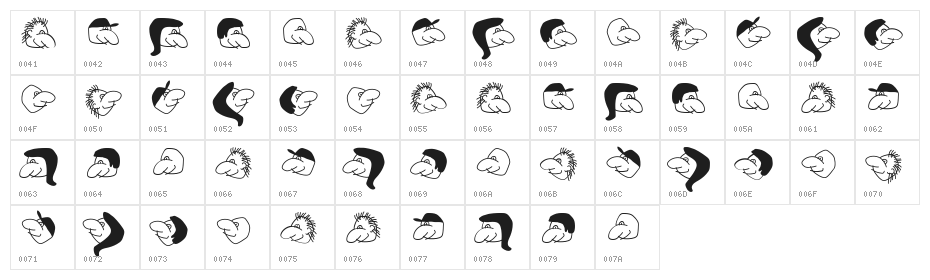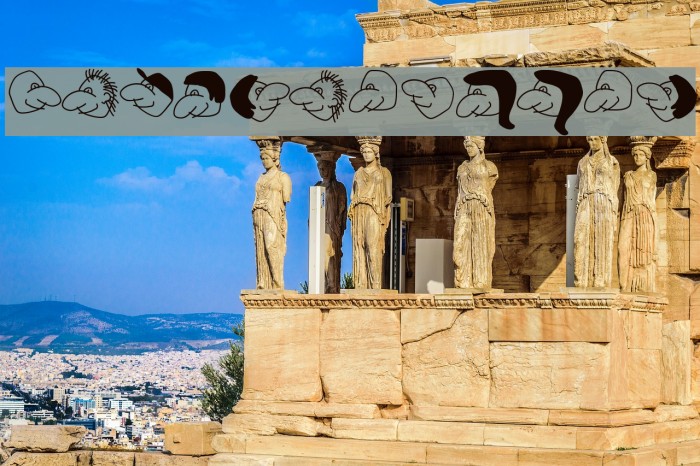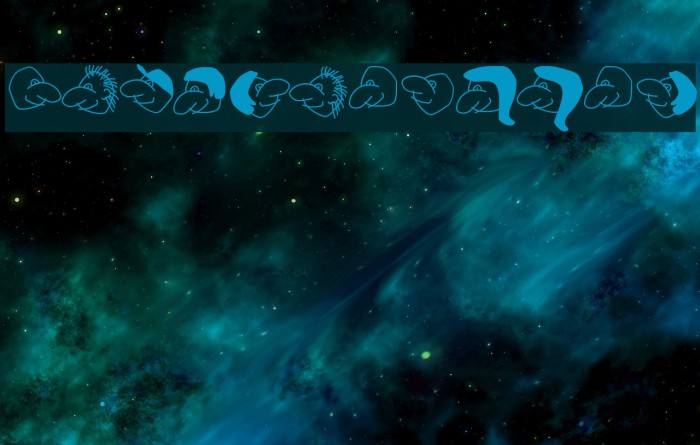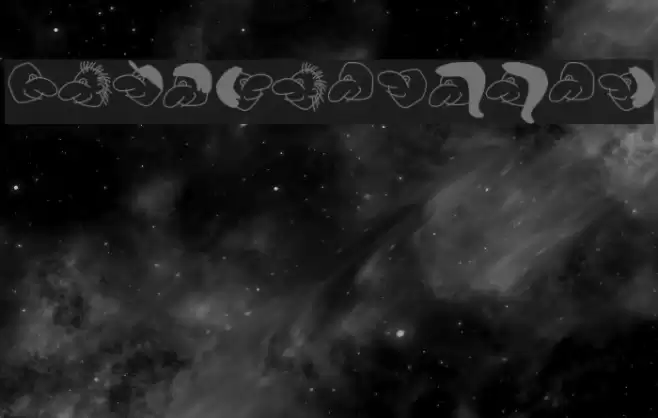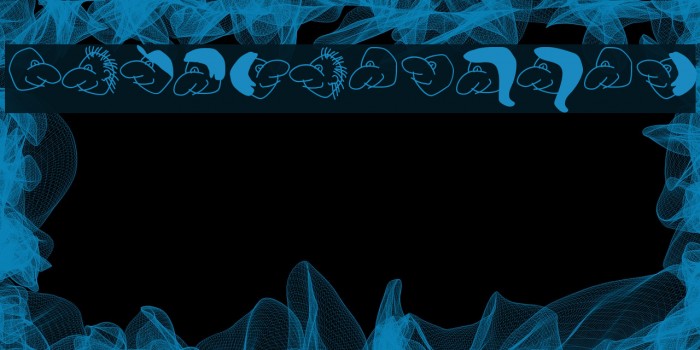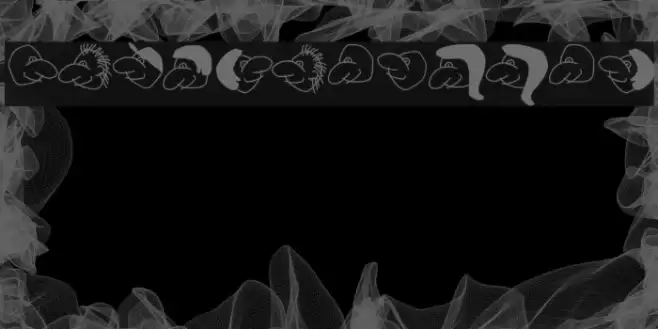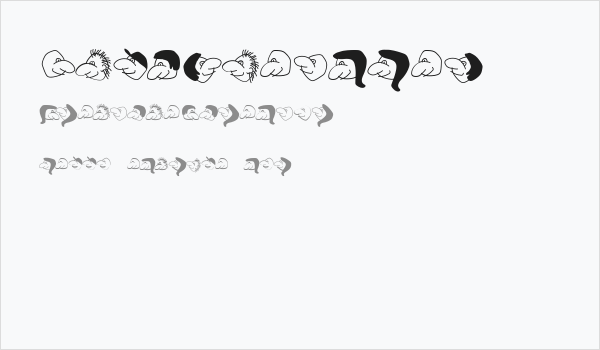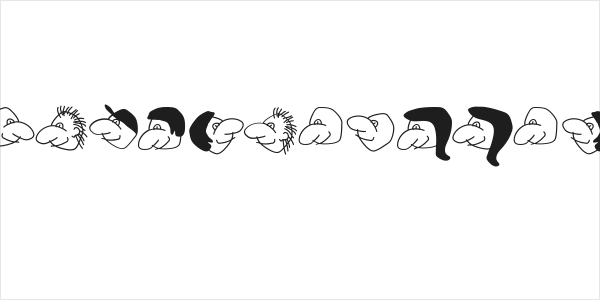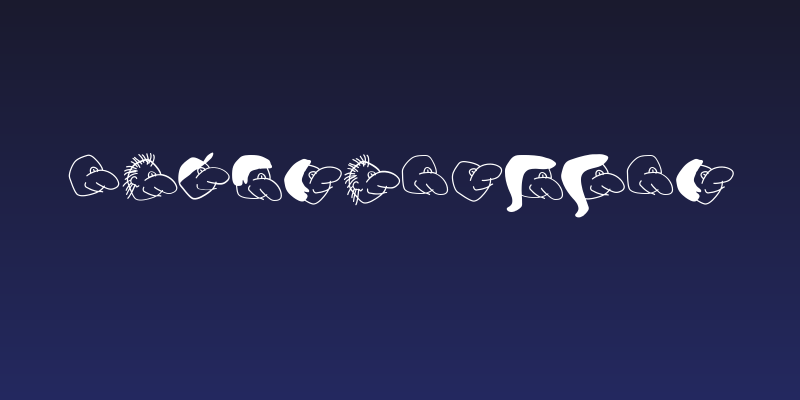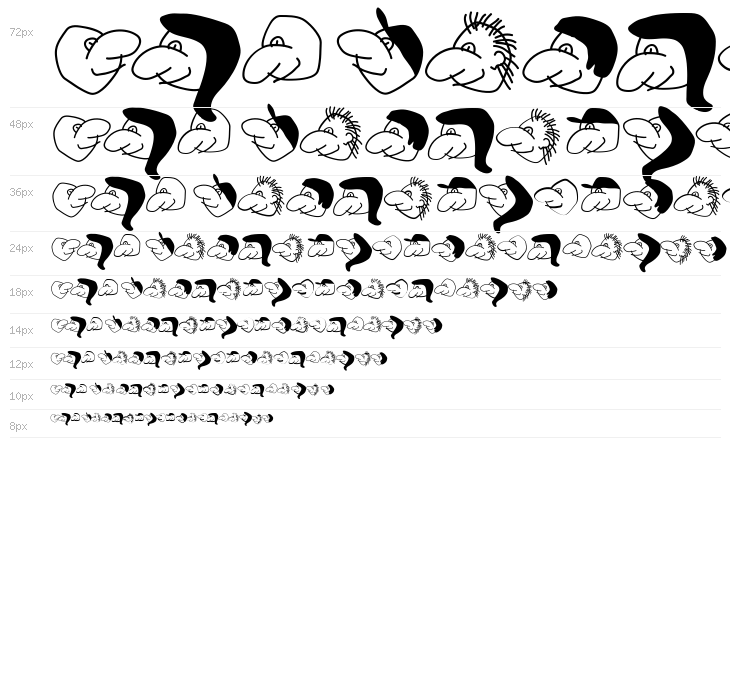
JulySketches Font
JulySketches Description
This is not a valid font. The image consists of a series of cartoonish faces, each with distinct features such as hats, hairstyles, and expressions. These illustrations are playful and whimsical, lacking any traditional typographic elements like letters or numbers. The characters are drawn in a consistent style, but they do not form a coherent typeface suitable for text representation.
| Overall Style | Whimsical |
| Use Case | Illustrations, Comics |
| Proposed Projects | This style could be used for comic strips, character design, or playful illustrations. |